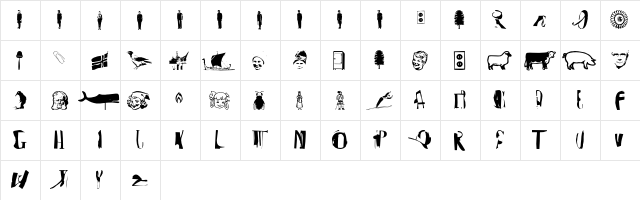
BurieDog MountainTop
Design Context for BurieDog Typeface
BurieDog is a composed and adaptable typeface that performs quietly and consistently across a wide range of design contexts.